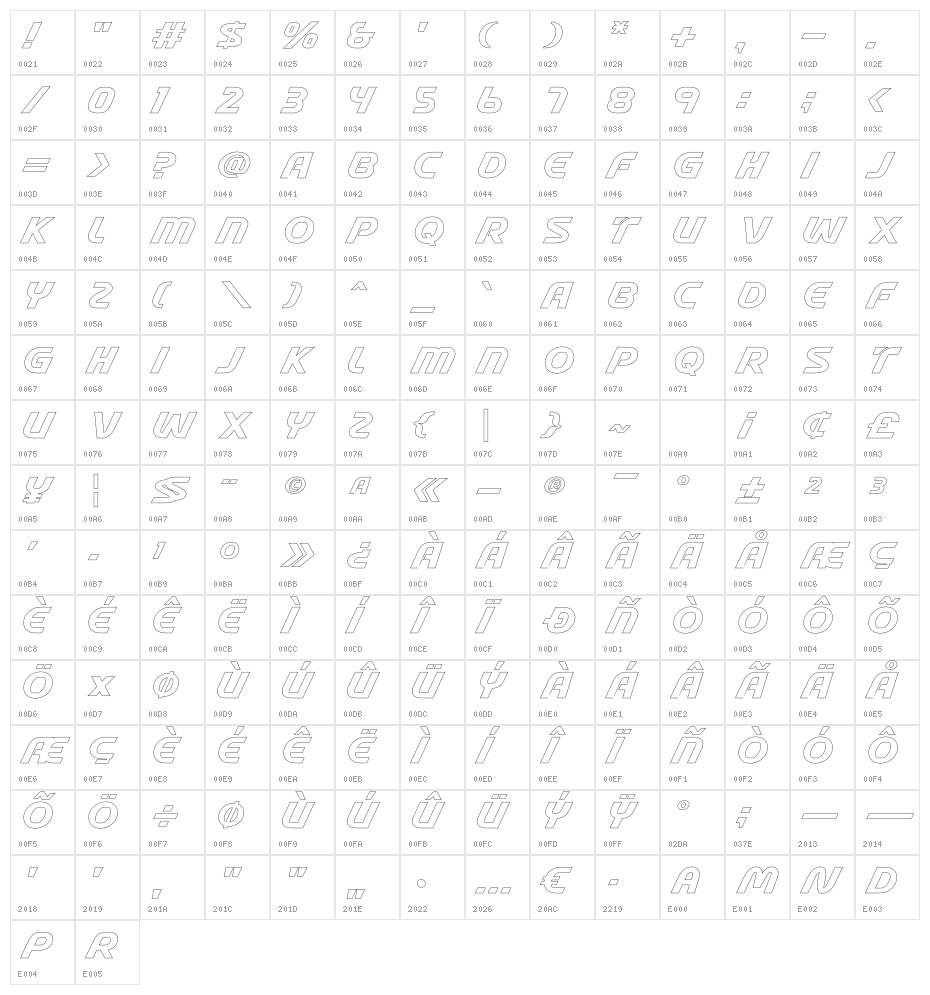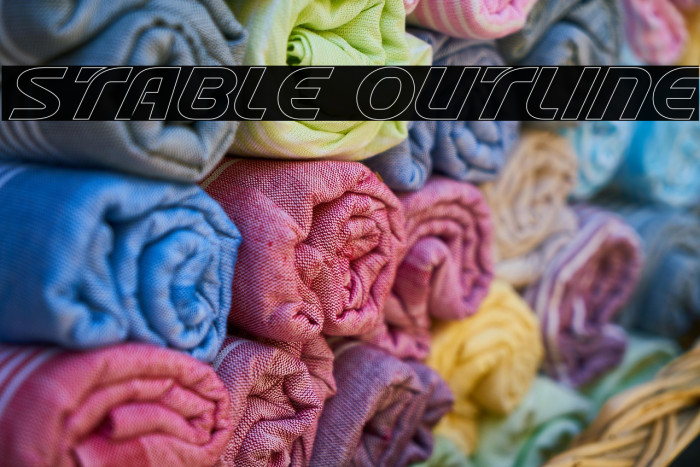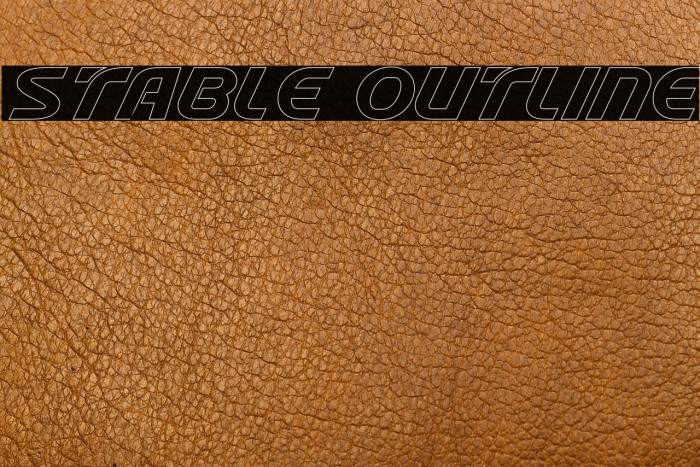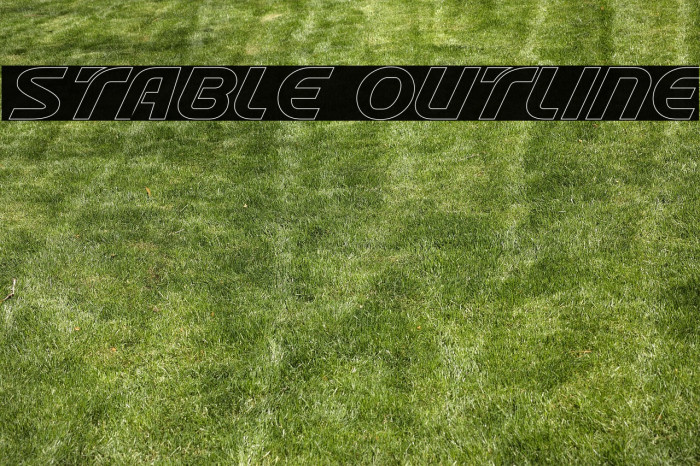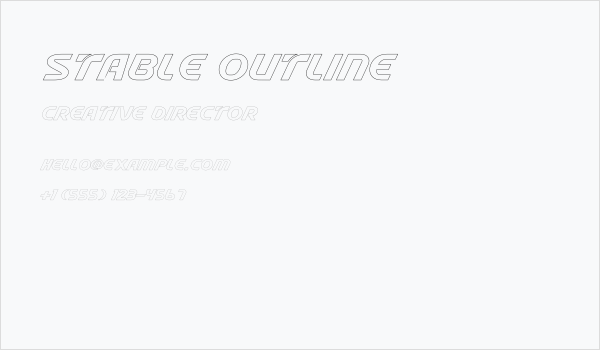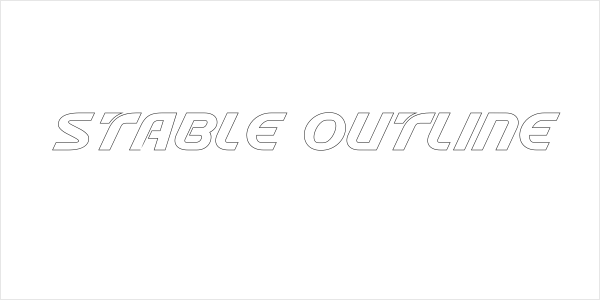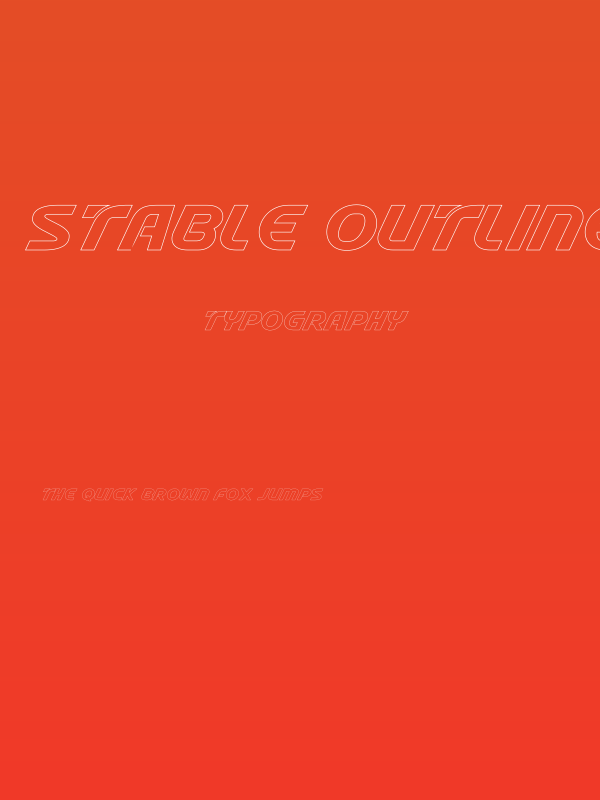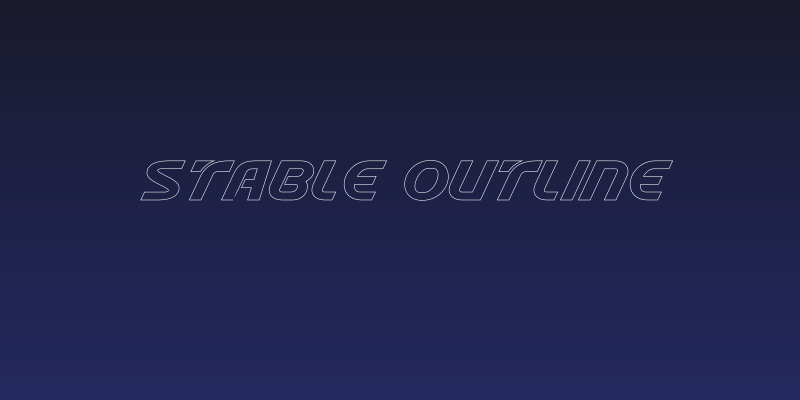
Stable Outline Font
Stable Outline Description
This font features a modern, sleek outline style with a futuristic and dynamic appearance. The characters are designed with a consistent stroke width, creating a clean and uniform look. The uppercase and lowercase letters maintain a geometric structure, providing a sense of stability and precision. The numbers and special characters follow the same design principles, ensuring a cohesive visual identity across all elements. The font's outline nature gives it a unique aesthetic that stands out, making it suitable for projects that require a bold and contemporary touch. Its versatility allows it to be used in various design contexts, from digital interfaces to print media.
| Proposed Projects | Ideal for branding, digital interfaces, posters, and futuristic-themed designs. |